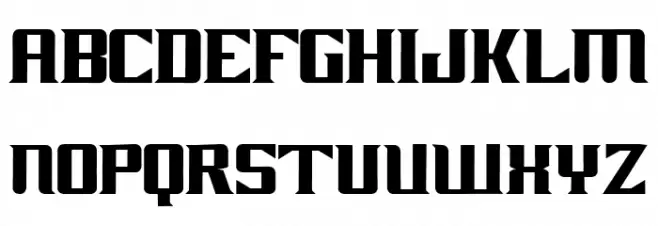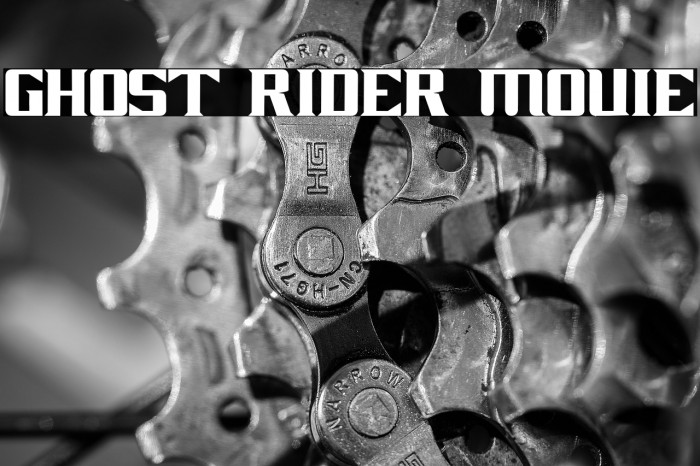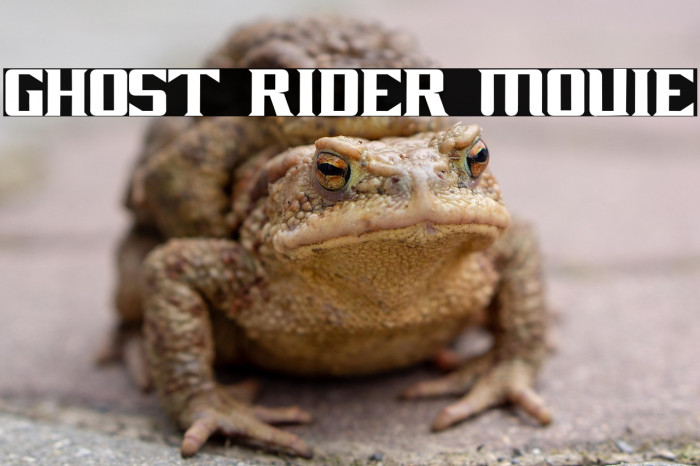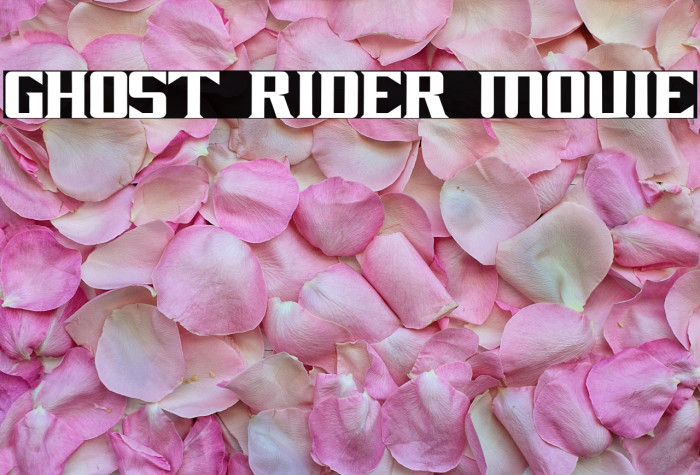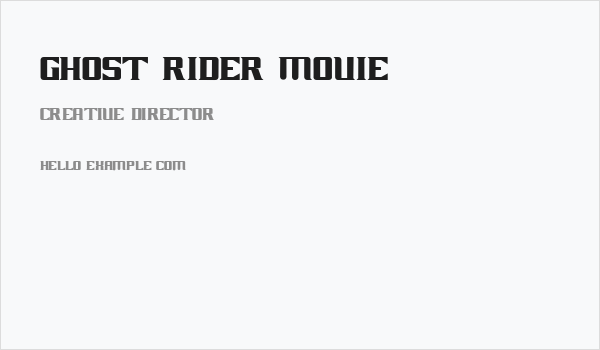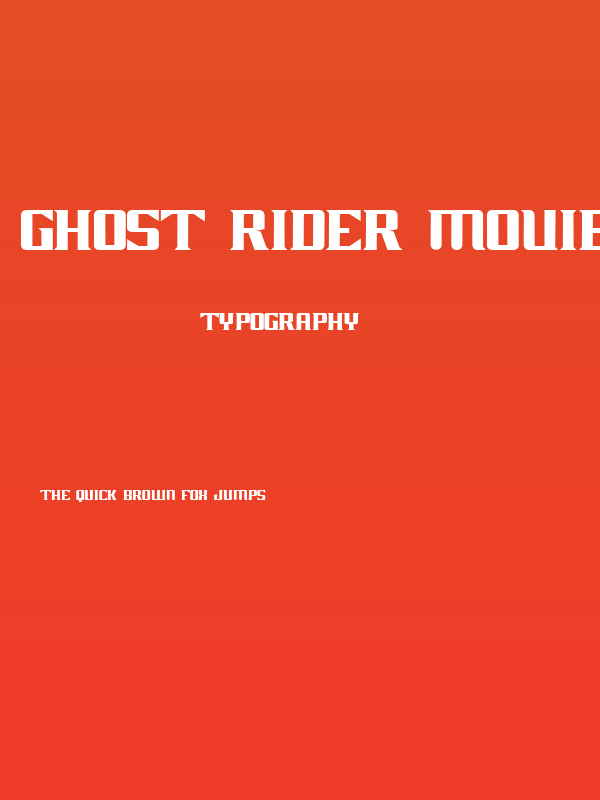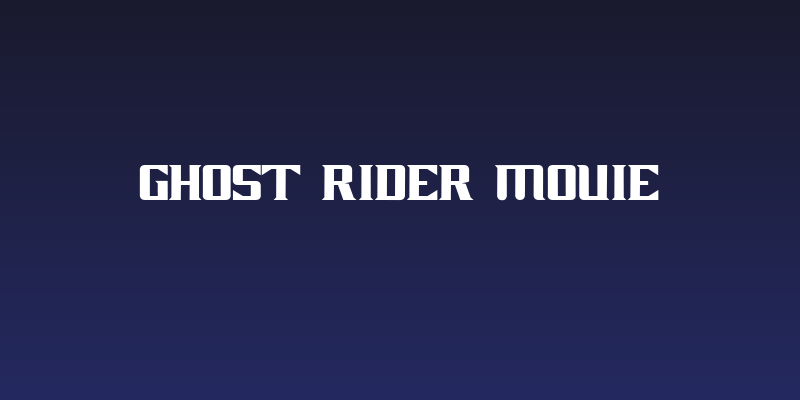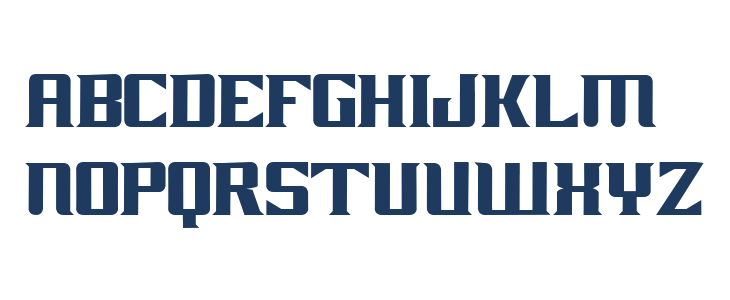
GHOST RIDER MOVIE Font
GHOST RIDER MOVIE Description
This font features a bold and striking design with sharp, angular edges and a strong presence. The characters are crafted with a distinct Gothic influence, showcasing a blend of modern and traditional elements. The uppercase letters are particularly prominent, with a uniform height and consistent stroke width that conveys a sense of power and authority. The font's unique style is characterized by its high contrast between thick and thin lines, creating a dynamic and visually engaging appearance. The spacing between characters is tight, enhancing its compact and cohesive look. This font is ideal for making a bold statement in any design project.
| Overall Style | Modern Gothic |
| Proposed Projects | Ideal for movie posters, video game titles, branding for edgy or alternative products, and any design requiring a strong, impactful presence. |